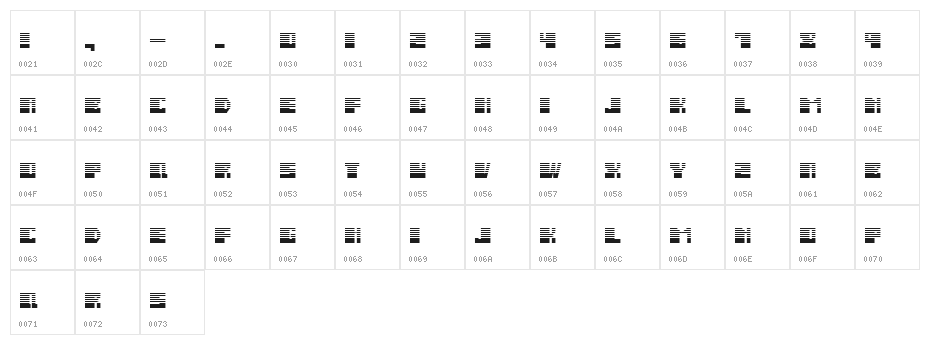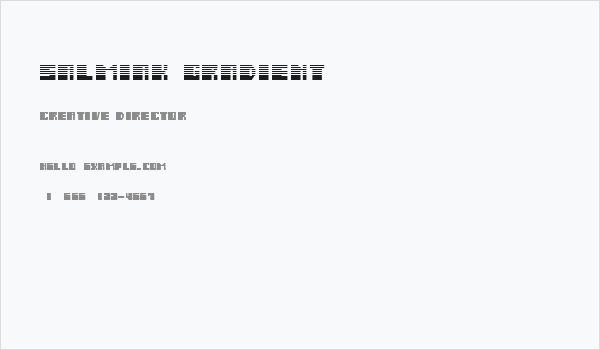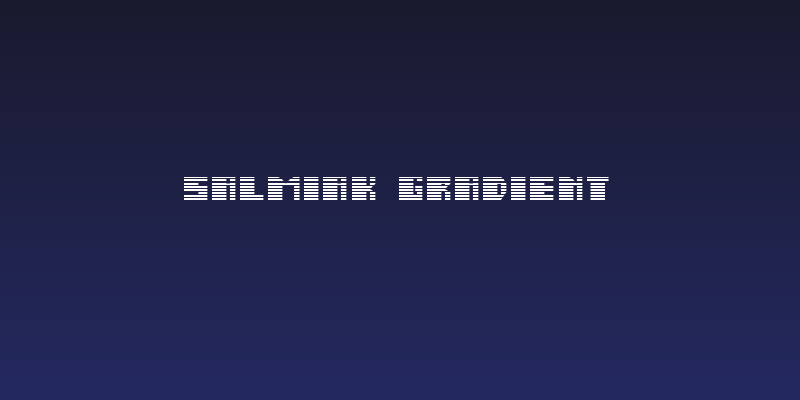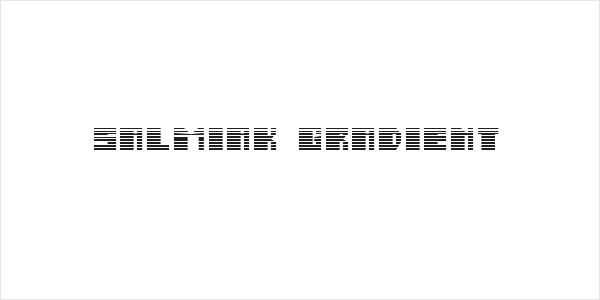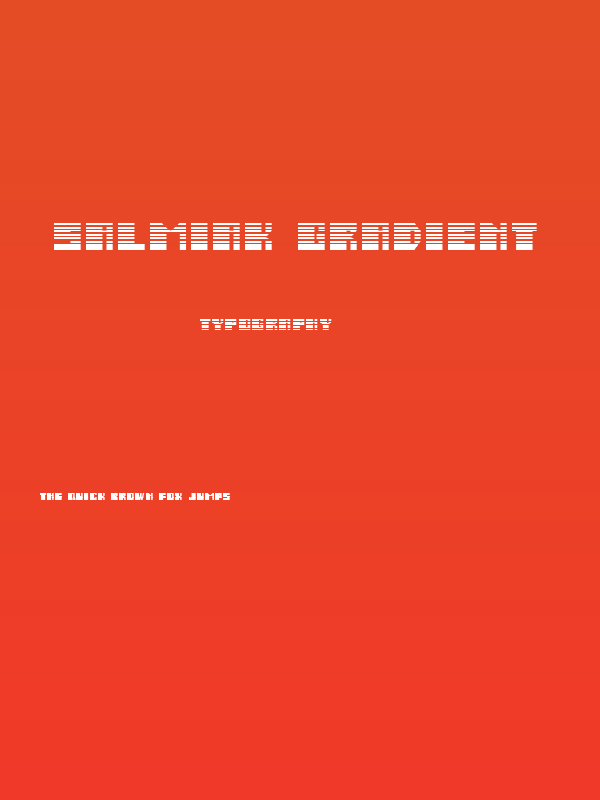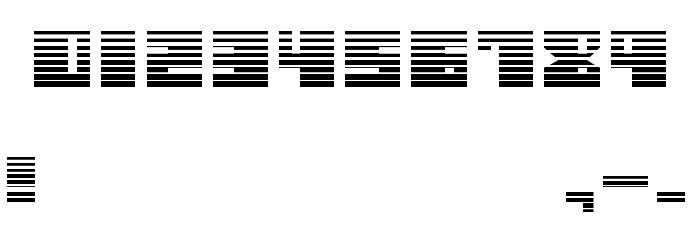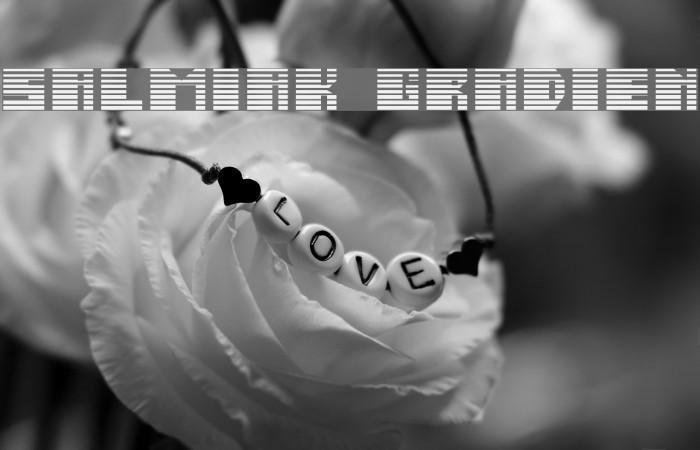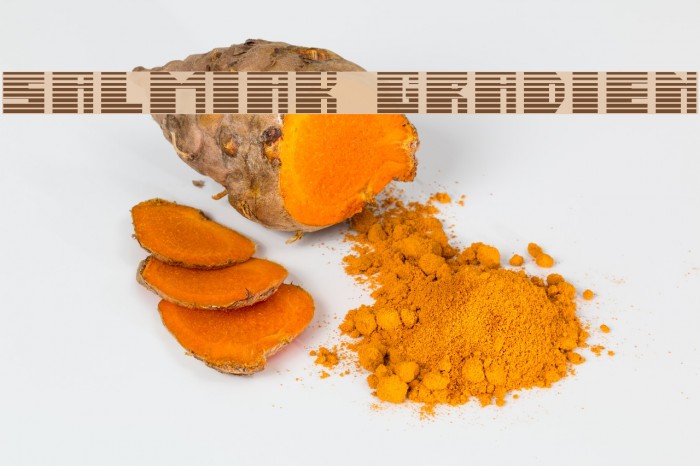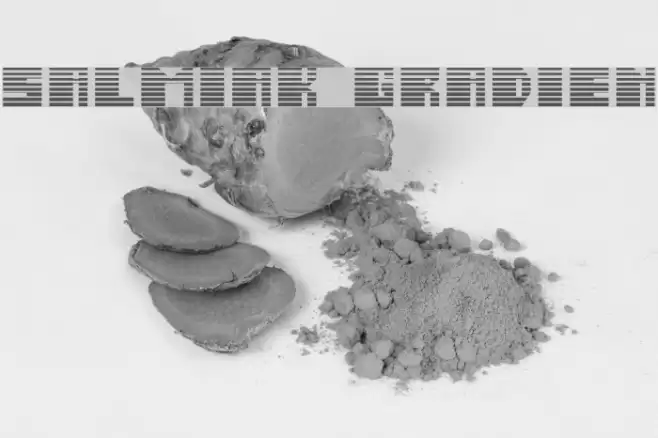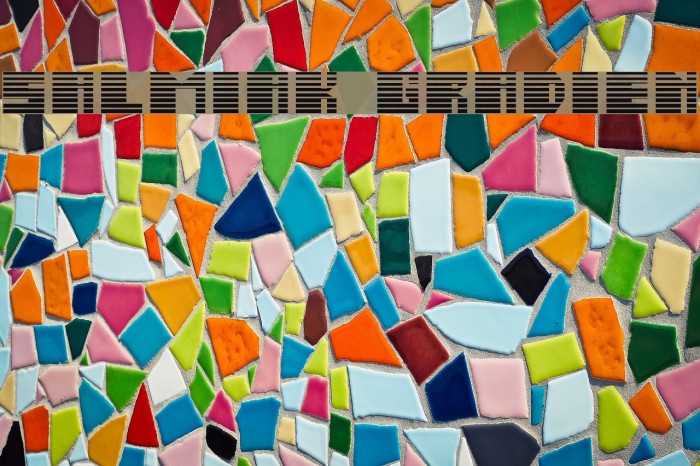
Salmiak Gradient Font
Salmiak Gradient Description
This font features a unique striped pattern, creating a visually striking effect that draws attention. Each character is composed of horizontal lines, giving it a modern and digital appearance. The uppercase and lowercase letters maintain a consistent style, with clean, geometric shapes. The numbers and special characters follow the same design, ensuring uniformity across all elements. This font is ideal for projects that require a bold and futuristic look, such as technology branding, digital art, or modern advertising.
| Proposed Projects | Ideal for technology branding, digital art, modern advertising, and futuristic designs. |